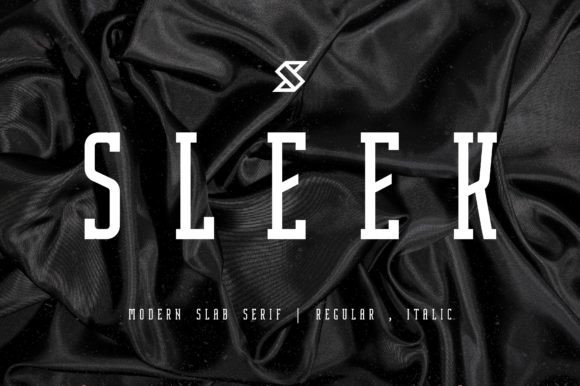
In this era of digital presence, your brand's visual identity is paramount. Fonts, the backbone of any design, play a pivotal role in shaping your message and leaving an indelible impression on your audience. Introducing Sleek Font, the epitome of elegance, simplicity, and sophistication.
Meticulously crafted by Minimalistartstudio, Sleek Font is a modern slab serif font family designed to captivate and resonate with your target audience. Its compressed feel and tall, slender structure exude an air of sophistication that commands attention. Whether you're creating magazine covers, social media posts, packaging designs, perfume labels, or any other modern design, Sleek Font is your ultimate choice for creating unforgettable impressions.
Immerse yourself in the world of Sleek Font and discover a font family that oozes class and refinement. Its clean lines and condensed design create a visually appealing aesthetic that complements both bold and subtle backgrounds. Embrace the versatility of Sleek Font and witness how it effortlessly elevates your designs to new heights of elegance.
Sleek Font is not just a collection of characters; it's a gateway to a world of creative possibilities. Whether you're a seasoned designer or just starting out, Sleek Font empowers you to unleash your inner creativity and craft designs that speak volumes. Its intuitive design and user-friendly interface make it a joy to work with, ensuring a seamless and enjoyable experience.
Don't settle for ordinary fonts that blend into the background. Choose Sleek Font, the font that stands out, captivates, and communicates your message with unmatched clarity and style. Experience the difference that Sleek Font can make in your designs and elevate your brand to new levels of success.